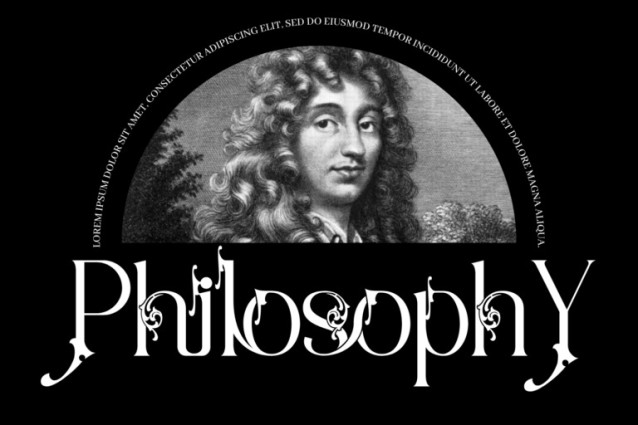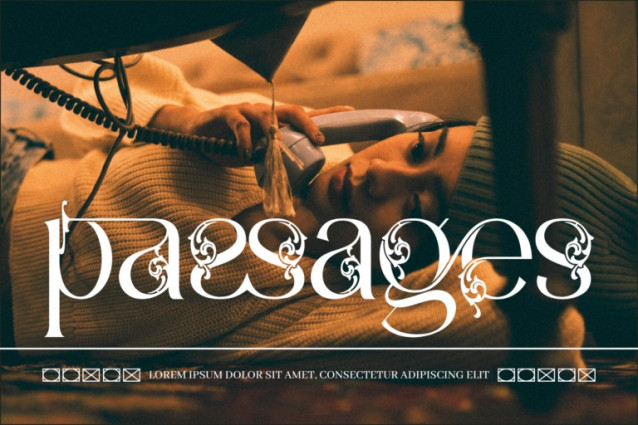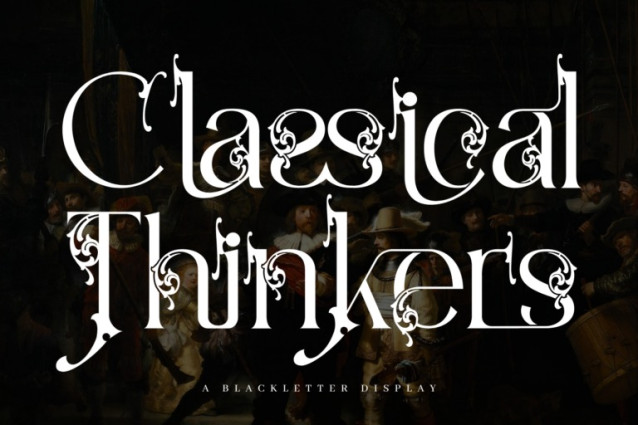
Classical Thinkers Font
Classical Thinkers – Baroque Font – Classical Decorative Serif Font, a timeless decorative serif display font that embodies classical beauty and intellectual refinement. Inspired by Baroque artistry and Renaissance philosophy, this font is designed for those who seek sophistication and historical grandeur in their creative projects. Featuring elegant curves, ornamental details, and harmonious symmetry, Classical Thinkers stands out as a refined choice for book covers, editorial layouts, luxury branding, art exhibition posters, and more.
Font Features:
Uppercase & Lowercase Characters
Approx. 100 Exquisite Ligatures
Accented Characters (Multilingual Support)
Stylistic Alternates for Creative Flexibility
About 100 ligatures combined with Stylistic Alternates Font: